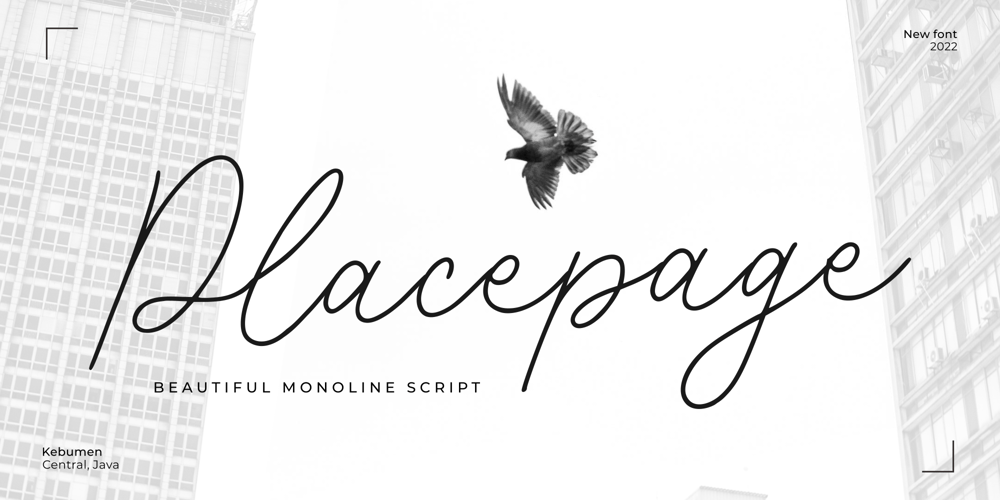
Placepage
Placepage font
Placepage Font Family was designed by Fachrizal Yusuf and published by Allouse Studio. Placepage contains 1 styles and family package options. Proudly Presenting, Placepage A Beautiful Monoline Script Font.Placepage is perfect for any titles, logo, product packaging, branding project, megazine, social media, wedding, or just used to express words above the background.Placepage also come with Multi-Lingual Support.Enjoy the font, feel free to comment or feedback, send me PM or email. Thank You!